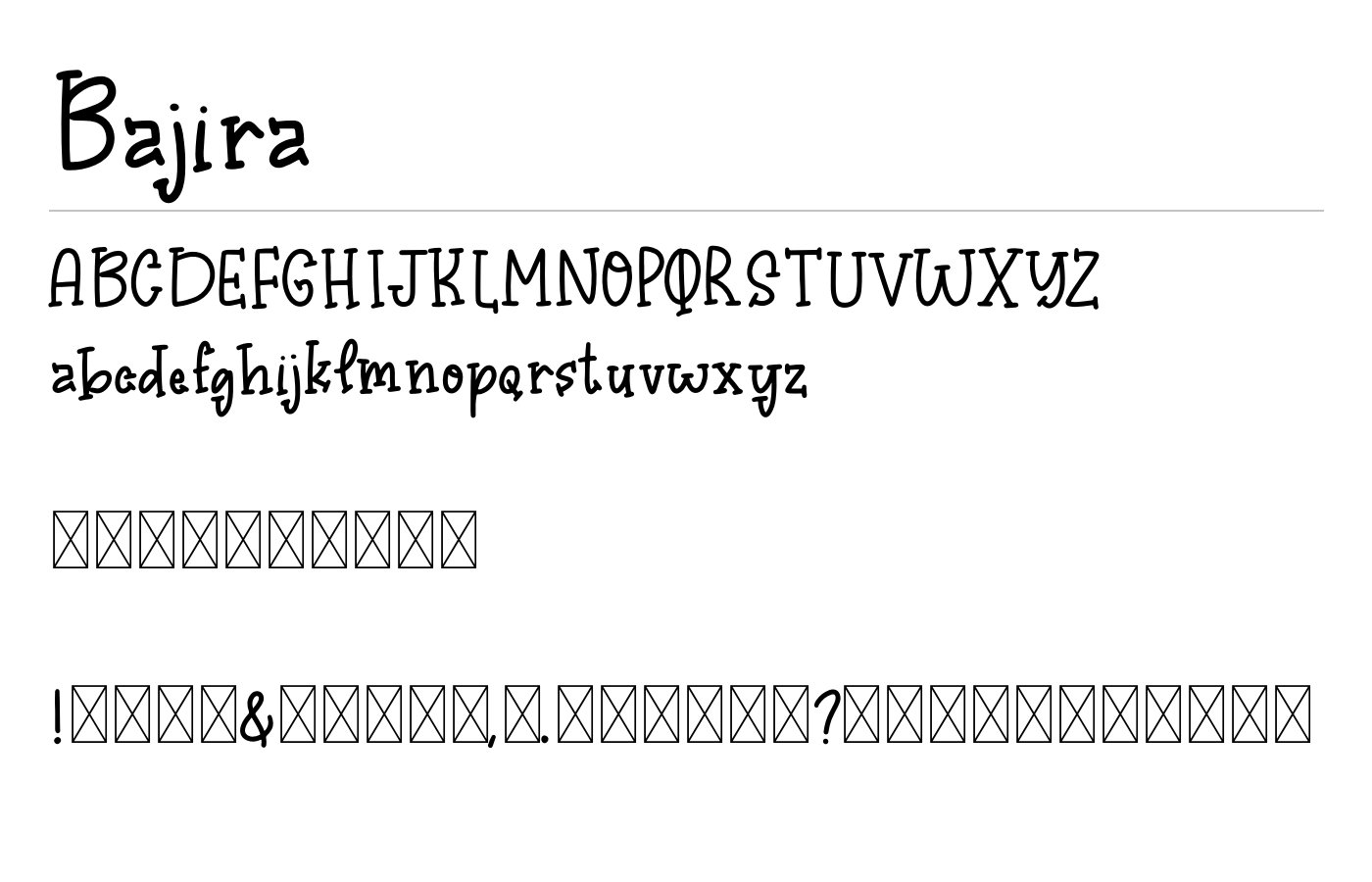
Bajira is a playful, handwritten-style sans serif font with a casual and quirky personality. Its irregular, slightly uneven letterforms and moderate contrast give it a friendly and approachable feel, making it ideal for creative projects, children’s books, and informal branding. This font works well for eye-catching headlines, invitations, and packaging that aim to convey warmth and originality.
Bajira Font
About Bajira Font